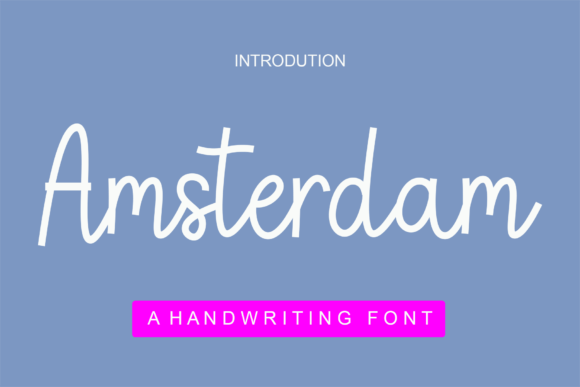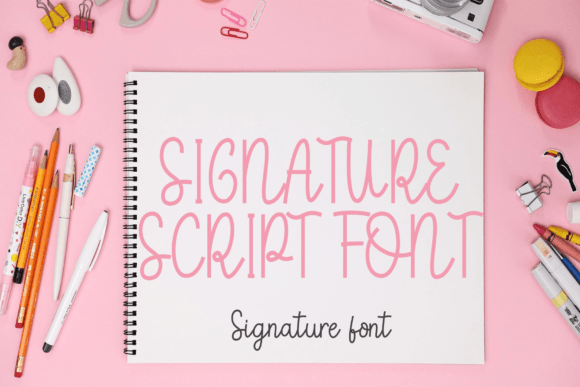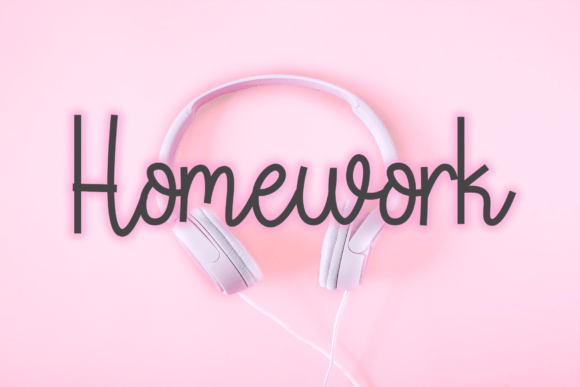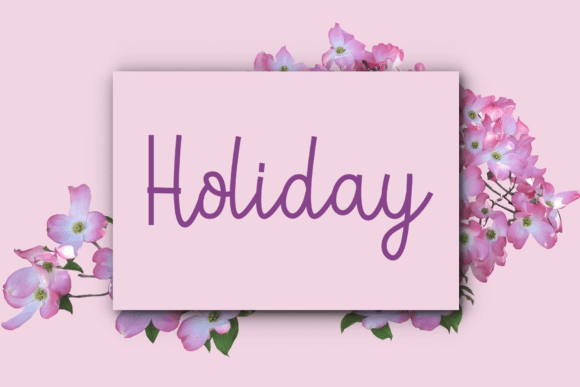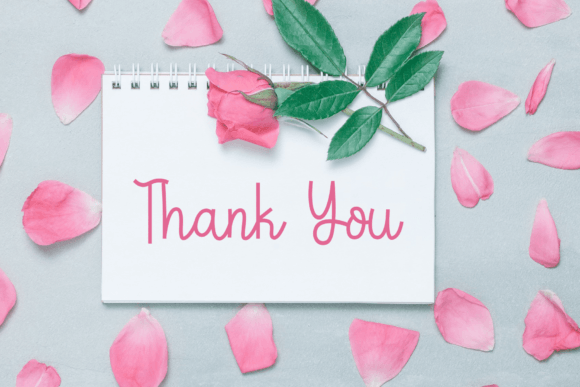
Unleash Your Creativity with the Enchanting Amsterdam Font
Remember the moment when you stumbled upon a beautiful quote or a heartfelt message, and you just knew you had to make it stand out? Perhaps it was a handwritten note from a loved one, or a stunning Instagram post that caught your eye. Whatever it was, you couldn’t help but feel inspired to create something special.
That’s where the Amsterdam Font comes in – a magical script font carefully crafted with a touch of elegance. Designed to elevate any creative idea into a true work of art, this font is perfect for Instagram enthusiasts, calligraphy lovers, and DIY enthusiasts alike. Whether you’re looking to add a personal touch to your designs or create a unique visual identity, the Amsterdam Font is an invaluable tool for designers.
With its sophisticated charm and versatility, the Amsterdam Font is a must-have for any creative project. In this article, we’ll delve into the world of this enchanting font and explore its many uses and benefits.
Amsterdam Font Key Features
- Unique Characteristics: The font features a unique blend of modern and traditional elements, with subtle geometric shapes and elegant lines, making it suitable for a wide range of design applications.
- Kerning and Ligatures: The font includes advanced kerning and ligature pairs, ensuring that text sets up smoothly and efficiently, even in complex layouts.
Amsterdam Font Review
Overall, I found the Amsterdam Font to be a decent addition to any design project. It’s perfect for titles and headings, especially in typographic-heavy designs where you want to make a statement.
- ✨ Elegant and sophisticated appearance
- ✨ Works well in both print and digital formats
- ✨ Versatile and can be used for various design purposes
- ✨ Good legibility, even at smaller font sizes
- ⚠️ Limited language support
- ⚠️ Not suitable for body text due to its ornate design
- ⚠️ May be difficult to read for people with certain visual impairments
In conclusion, the Amsterdam Font is a beautiful and elegant font that can add a touch of sophistication to any design. While it has its limitations, it’s perfect for specific design projects where its unique characteristics can shine. Just be mindful of its limitations and use it wisely.
Tips for Getting the Most Out of Amsterdam Font
For the best results, use Amsterdam Font in headings and titles to add a touch of elegance and sophistication. You can also pair it with other fonts to create a unique and eye-catching design.
Amsterdam Font is perfect for:
- Business cards and brochures
- Restaurant menus and signage